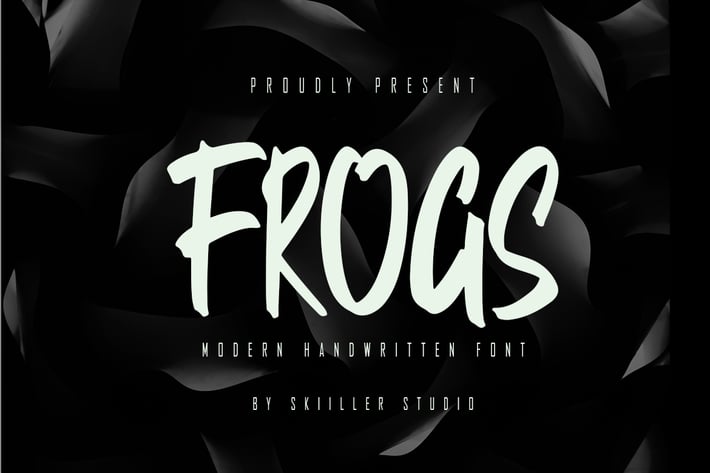
Frogs - Modern Handwritten Font
Frogs is a modern and brushed handwritten font, crafted to give your headlines and logotype projects a stylish touch. This font reads as strong, confident, and dynamic and can add tons of urban character to your designs.
+ Basic Latin Language Support (AÀÁÂÃÄÅCÇDÐEÈÉÊËIÌÍÎÏÑOØÒÓÔÕÖUÙÜÚÛWYÝŸÆß )